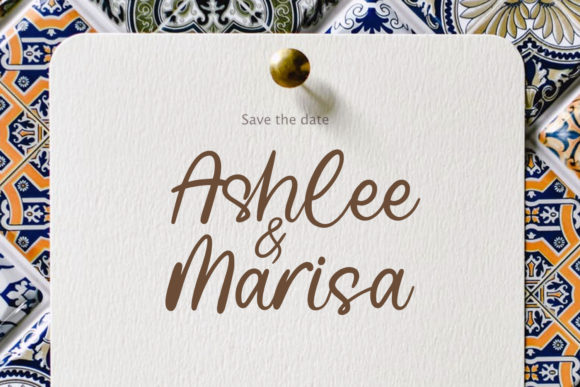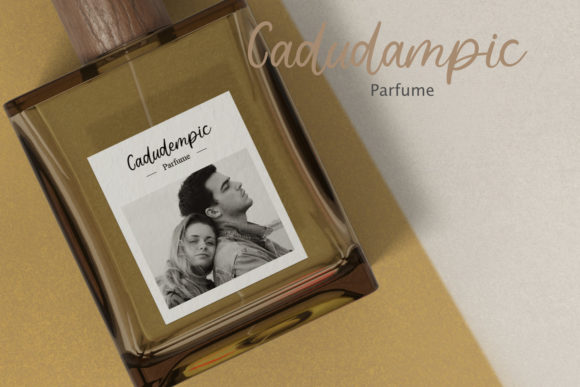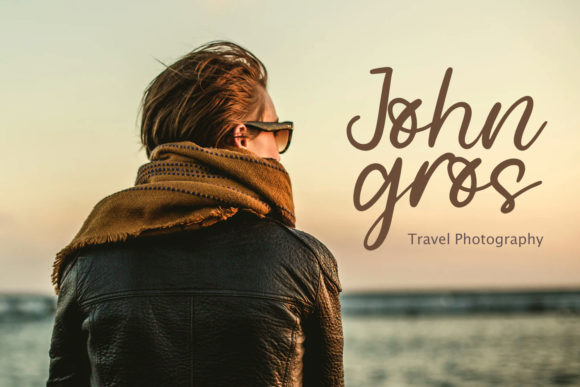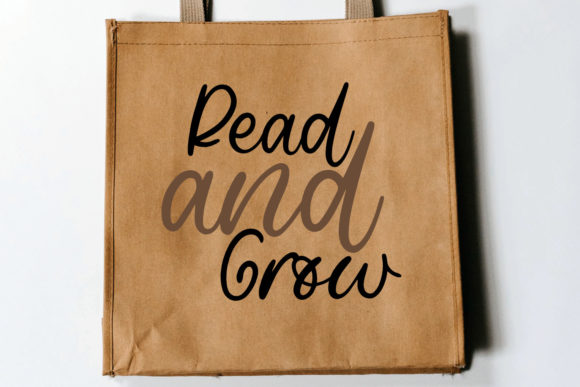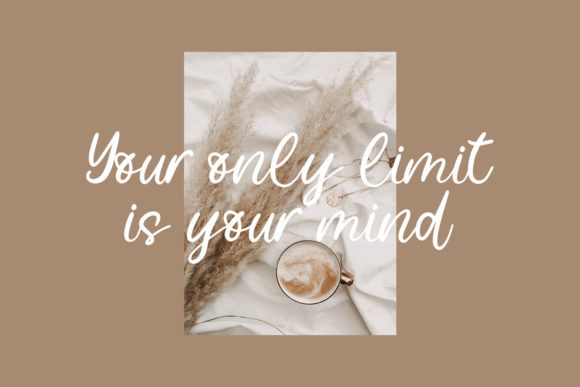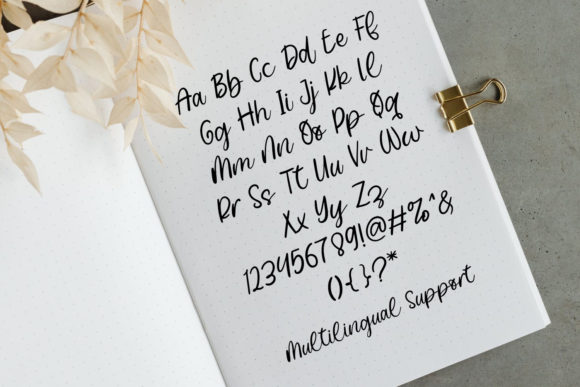
Introducing Billowy Font: Elevate Your Design with Elegance
Are you looking for a font that exudes luxury and sophistication? Look no further than Billowy Font, a stunning script font that is sure to add a touch of elegance to any design project. With its delicate and well-balanced characters, Billowy Font is the perfect choice for designers and crafters who want to create beautiful and eye-catching designs.
What is Billowy Font?
Billowy Font is a script font that features characters that dance along the baseline, creating a sense of movement and fluidity. This beautiful font is designed to be versatile and can be used for a wide range of design projects, from wedding invitations and stationery to branding and advertising materials.
Key Features of Billowy Font
• Delicate and Well-Balanced Characters: Each character in Billowy Font is carefully crafted to be delicate and well-balanced, creating a sense of harmony and elegance.
• Luxury Spark: With its flowing script and elegant lines, Billowy Font adds a touch of luxury to any design project.
• Versatile: Billowy Font can be used for a wide range of design projects, from formal events to branding and advertising materials.
Why Choose Billowy Font?
There are many reasons why designers and crafters choose Billowy Font for their design projects. Here are just a few:
• Elegance and Sophistication: Billowy Font exudes elegance and sophistication, making it perfect for high-end design projects.
• Easy to Read: Despite its delicate nature, Billowy Font is easy to read, even at small sizes.
• Unique and Eye-Catching: Billowy Font is a unique and eye-catching font that will set your design project apart from the rest.
How to Use Billowy Font in Your Design Projects
Billowy Font is easy to use and can be incorporated into a wide range of design projects. Here are a few ideas to get you started:
• Wedding Invitations and Stationery: Billowy Font is perfect for wedding invitations, save-the-date cards, and other stationery.
• Branding and Advertising: Use Billowy Font to add a touch of elegance to your branding and advertising materials, such as business cards, brochures, and flyers.
• Signage and Displays: Billowy Font can be used for signage and displays, such as storefront signs, banners, and posters.
Tips for Getting the Most Out of Billowy Font
Here are a few tips for getting the most out of Billowy Font:
• Use it Sparingly: Billowy Font is a statement font, so use it sparingly to make a big impact.
• Pair it with Other Fonts: Billowy Font pairs well with other fonts, such as sans-serif fonts, to create a striking contrast.
• Experiment with Colors: Billowy Font looks beautiful in a range of colors, so experiment with different colors to find the one that works best for your design project.
In conclusion, Billowy Font is a beautiful and elegant script font that is perfect for designers and crafters who want to add a touch of luxury to their design projects. With its delicate and well-balanced characters, Billowy Font is sure to make a statement and leave a lasting impression. So why not give it a try and see the difference it can make in your design projects?